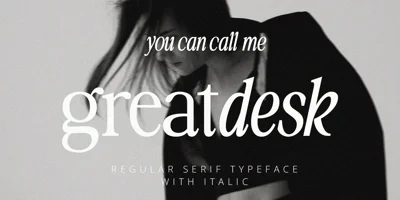
Greatdesk Font
Greatdesk Font is ideal for office furniture branding, workspace design presentations, productivity software interfaces, professional stationery designs, corporate training materials, and modern business communication templates.
Greatdesk Font is exciting because it perfectly captures the essence of productive workspace environments, offering designers a professional typeface that embodies efficiency, organization, and contemporary office culture.
The Greatdesk Font family includes workplace variations: Greatdesk Light, Greatdesk Regular, Greatdesk Medium, Greatdesk Bold, and condensed versions optimized for business document clarity and professional presentations.
Maximize productivity with Greatdesk Font, a professionally crafted typeface that brings workplace efficiency and modern business sophistication to your corporate design projects. This versatile font excels in creating polished branding for coworking spaces, office supply companies, business coaching services, and productivity consultants who help organizations optimize their work environments. The carefully balanced letterforms feature clean, readable construction with subtle contemporary details that communicate professionalism and reliability while ensuring excellent performance across digital screens and printed materials. Perfect for employee handbooks, quarterly reports, business proposal templates, and corporate website designs that need to convey competence and trustworthiness, this font speaks directly to professionals seeking effective communication tools. Each character works harmoniously to create documents that look organized and authoritative, making every business message feel expertly crafted. Greatdesk Font transforms routine office communications into polished presentations that enhance professional credibility and workplace success.